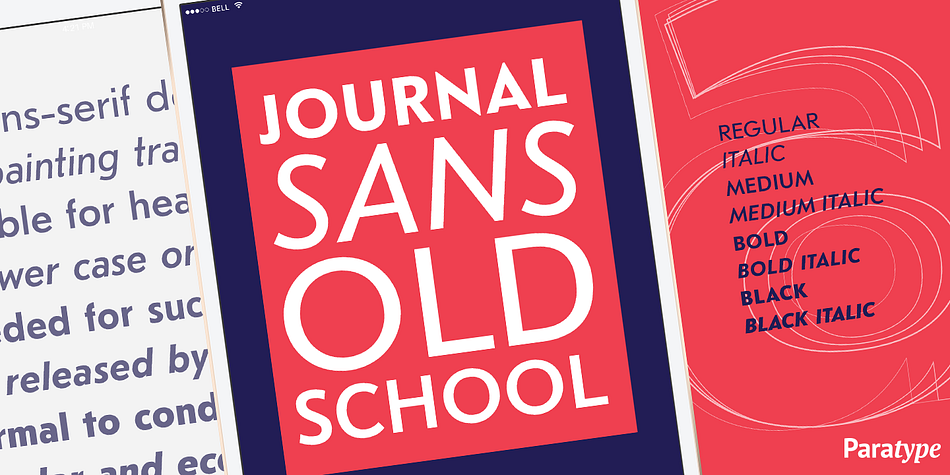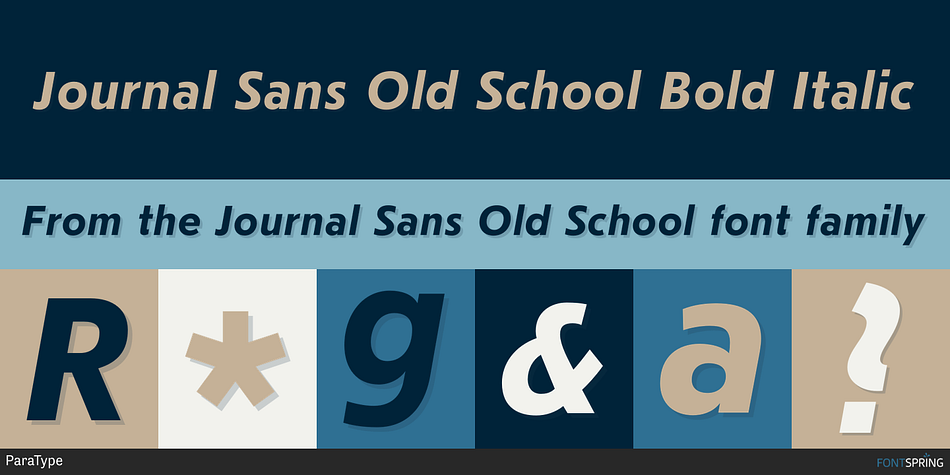
Journal Sans Old School Bold Italic
Designed by Natalia Vasilyeva, Journal Sans Old School is a sans serif font family. This typeface has eight styles and was published by ParaType.
Journal Sans Old School is a new, modernized digital version of the widely popular Journal Sans. The new typeface preserves the character of the geometric sans from the famous “Science and Life” magazine of the 1960s. The weight of the basic styles corresponds to the Journal Sans regular and bold from the Soviet linotype catalogs. Also, the original vertical proportions and character forms match the original. Cyrillic Alternates, Greek language support and an additional set of mathematical symbols expand the range of font’s usage. Journal Sans Old School was designed by Natalia Vasilyeva and released by Paratype.